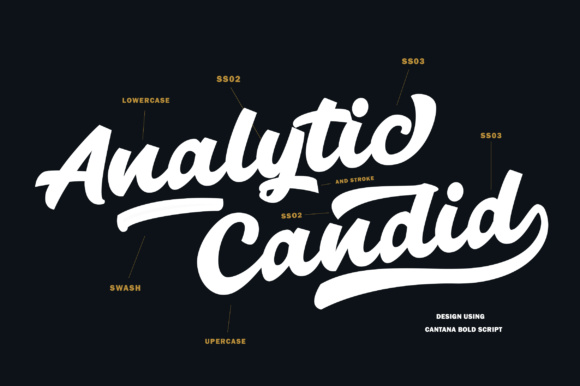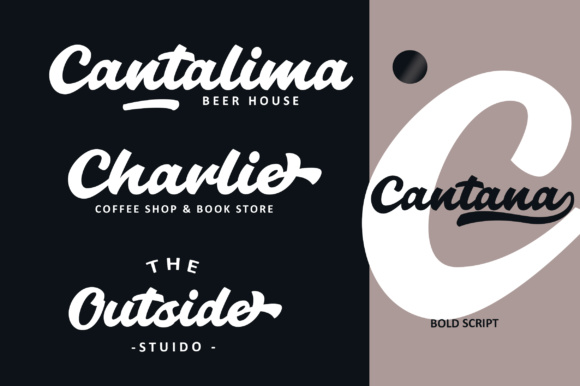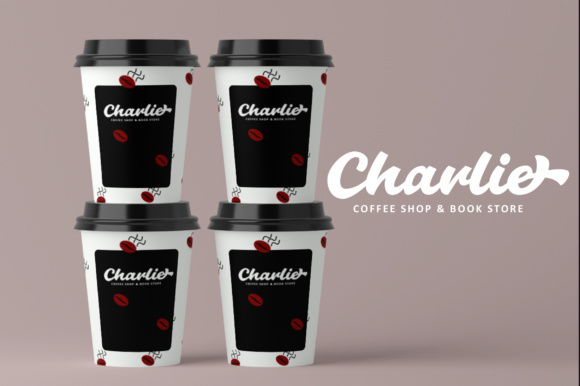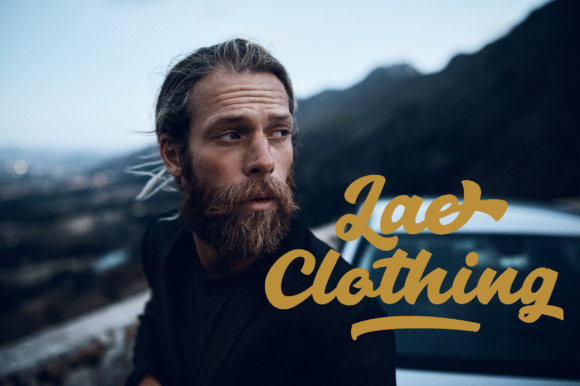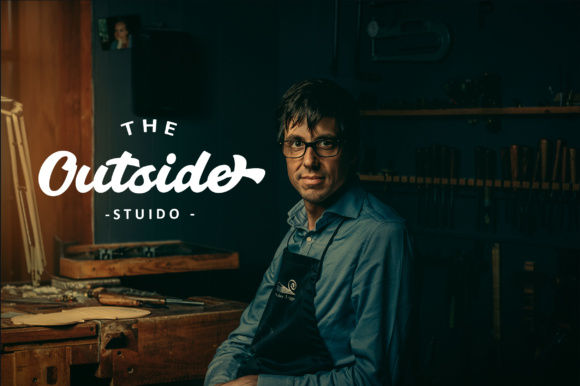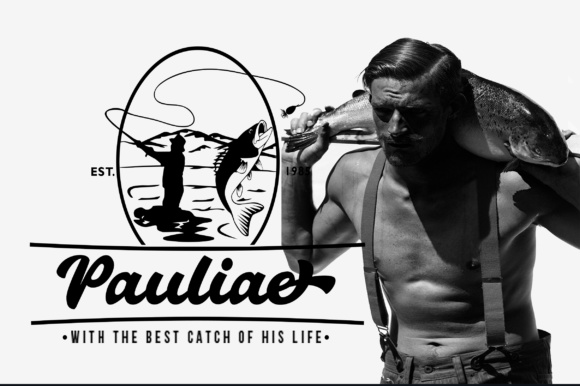
The Perfect Script Font to Elevate Your Personal Brand
Have you ever stared at a blank canvas, a blank document, or a blank screen, waiting for inspiration to strike? That’s exactly where I was when I discovered the Cantana Script Font – a game-changer for designers and creatives alike. Its bold and elegant script is guaranteed to leave a lasting impression, making it perfect for personal branding, logos, and other design projects.
As a designer, you know how important it is to choose a font that not only looks great but also conveys your message effectively. Cantana Script Font is a valuable addition to any designer’s toolkit, offering a unique and attractive look that’s both legible and impactful. Whether you’re creating a logo, business card, or website, this font is sure to elevate your personal brand and make it stand out from the crowd.
Cantana Script Font Key Features
- Font Family: Cantana Script
- Unique Characteristics: Cantana Script features a unique, hand-drawn design with subtle flair and elegance, making it ideal for creative and artistic applications
Cantana Script Font Review
I’ve had the chance to work with Cantana Script Font, and here’s my honest take on it. ✨ The first thing that caught my attention was its beautiful, elegant feel. It’s perfect for adding a touch of sophistication to any design project. The font’s flowing lines and curves make it ideal for creative and artistic applications.
Another great thing about Cantana Script Font is its versatility. ✨ It’s suitable for a wide range of design projects, from invitations and posters to logos and branding materials. The font is also highly customizable, allowing designers to adjust its color, size, and style to fit their specific needs.
- ⚠️ Limited font sizes: While Cantana Script Font looks great at larger sizes, it can become distorted and difficult to read at smaller sizes.
- ⚠️ Limited font weights: The font only comes in a few weights, which can limit its use in certain design projects where more font weights are required.
- ⚠️ Not suitable for body text: Due to its script nature, Cantana Script Font is not ideal for body text or large blocks of text, as it can be difficult to read.
Overall, I think Cantana Script Font is a great addition to any designer’s toolkit. While it has some limitations, its unique style and versatility make it a valuable asset for creative projects.
Getting the Most Out of Cantana Script Font
To get the most out of Cantana Script Font, try the following tips:
– Use it for titles and headings to add a touch of elegance.
– Combine it with other fonts to create a unique and interesting typography.
– Experiment with different font sizes and colors to create visual interest.
Cantana Script Font is ideal for:
– Wedding invitations and stationery.
– Branding and logos for creative businesses.
– Social media graphics and advertisements.
Alternatives to Cantana Script Font for Designers
Great Vibes is a beautiful, elegant script font that is perfect for creating a luxurious and sophisticated look. It is ideal for use in wedding invitations, magazine covers, and other high-end designs. Great Vibes has a more refined and polished feel compared to Cantana Script Font, making it suitable for more formal and professional projects.
Carolyna Pro is a modern script font that is great for creating a stylish and trendy look. It is perfect for use in fashion magazines, advertising campaigns, and other design projects that require a modern and edgy feel. Carolyna Pro has a more dynamic and energetic feel compared to Cantana Script Font, making it suitable for younger and more fashion-forward audiences.
Alex Brush is a elegant and refined script font that is perfect for creating a sophisticated and luxurious look. It is ideal for use in high-end designs, such as wedding invitations, luxury branding, and other professional projects. Alex Brush has a more delicate and feminine feel compared to Cantana Script Font, making it suitable for more traditional and elegant designs.